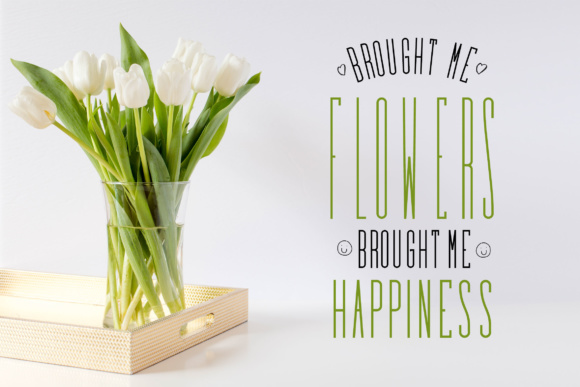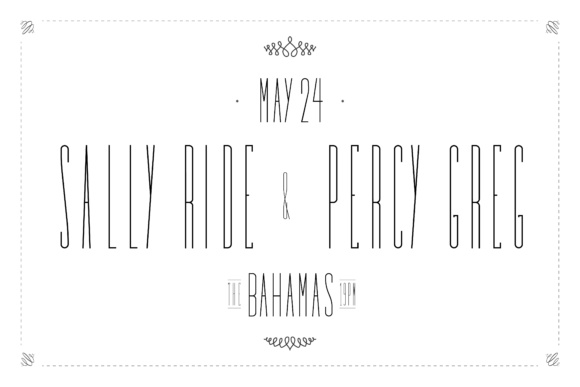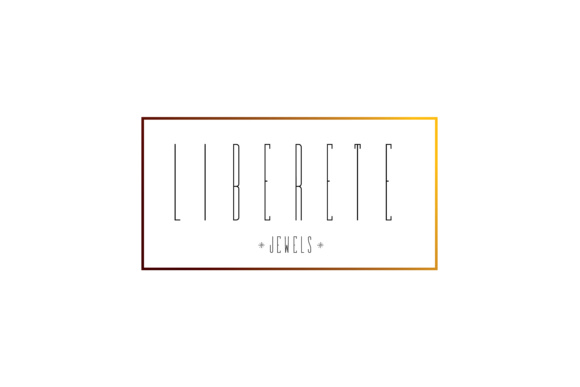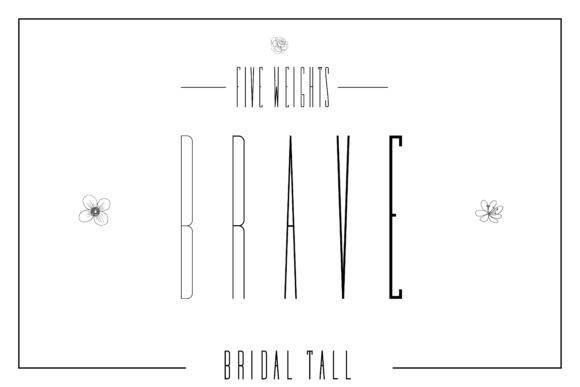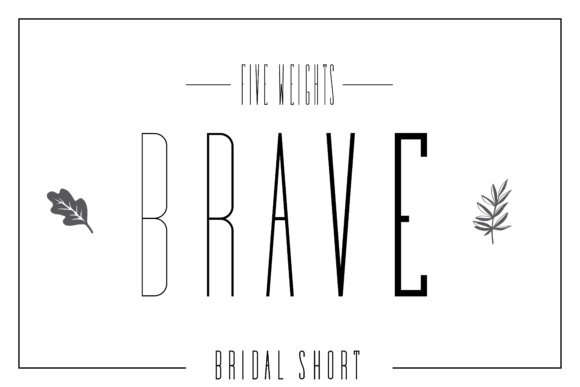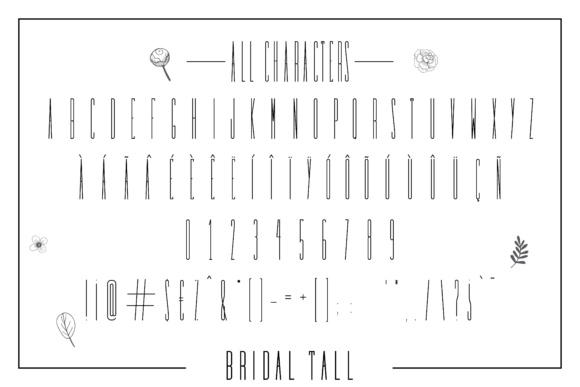
Bridal Font: Elevate Your Wedding, Fashion, and Editorial Designs with Elegance
Are you a designer or crafter looking for the perfect font to add a touch of elegance to your wedding, fashion, or editorial projects? Look no further than Bridal Font, a stunning sans serif display font that is sure to become a staple in your design arsenal. With its clean lines, sophisticated style, and versatility, Bridal Font is the ideal choice for creating beautiful designs that exude luxury and refinement.
What is Bridal Font?
Bridal Font is a sans serif display font that boasts a modern and sleek aesthetic, making it perfect for a wide range of design applications. Its clean and minimalist design ensures that your text remains clear and legible, even at large sizes, while its elegant style adds a touch of sophistication to any project.
Key Features of Bridal Font
So, what sets Bridal Font apart from other fonts? Here are just a few of its key features:
- Five Different Weights: Bridal Font comes in five different weights, providing you with a range of options to suit your design needs. Whether you want to create a bold statement or a more subtle look, Bridal Font has got you covered.
- Sans Serif Design: The sans serif design of Bridal Font gives it a modern and sleek look that is perfect for contemporary designs.
- Highly Legible: Despite its elegant style, Bridal Font remains highly legible, even at small sizes.
- Versatile: Bridal Font is suitable for a wide range of design applications, including wedding designs, fashion projects, editorial layouts, and more.
Use Cases for Bridal Font
Bridal Font is an incredibly versatile font that can be used in a variety of design applications. Here are just a few ideas to get you started:
- Wedding Designs: Create beautiful wedding invitations, programs, and signage with Bridal Font.
- Fashion Projects: Use Bridal Font to add a touch of elegance to your fashion designs, such as clothing labels, packaging, and marketing materials.
- Editorial Layouts: Add a touch of sophistication to your editorial layouts, such as magazines, newspapers, and blogs, with Bridal Font.
- Signage and Displays: Use Bridal Font to create eye-catching signage and displays for events, exhibitions, and retail spaces.
Tips for Using Bridal Font
Here are a few tips for getting the most out of Bridal Font:
- Experiment with Different Weights: Try out different weights of Bridal Font to add depth and visual interest to your designs.
- Pair with Other Fonts: Combine Bridal Font with other fonts to create a unique and visually appealing typography scheme.
- Use for Headings and Titles: Use Bridal Font for headings and titles to add a touch of elegance and sophistication to your designs.
In conclusion, Bridal Font is a stunning sans serif display font that is perfect for designers and crafters looking to add a touch of elegance to their wedding, fashion, or editorial projects. With its clean lines, sophisticated style, and versatility, Bridal Font is sure to become a staple in your design arsenal. So why wait? Download Bridal Font today and start creating beautiful designs that exude luxury and refinement!